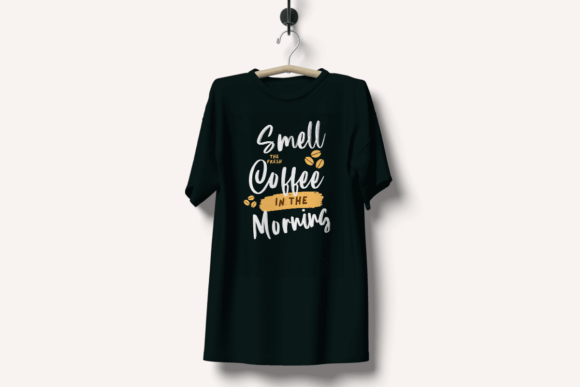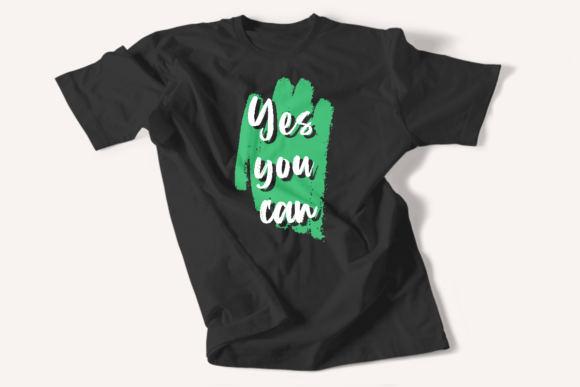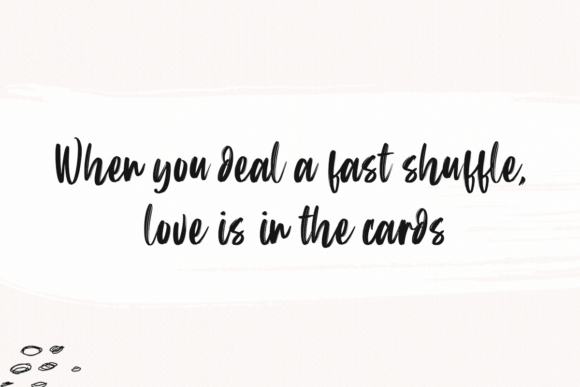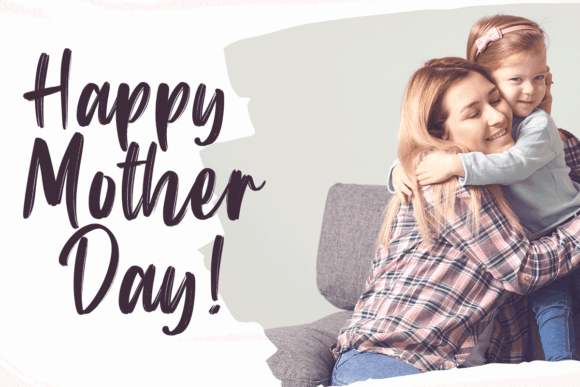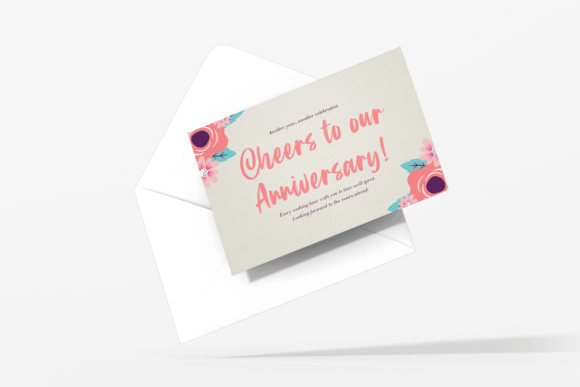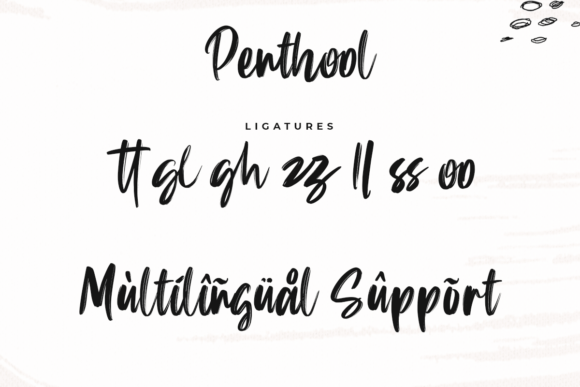
Penthool Font
About Penthool Font
“Penthool” is introduced as a classy, paint-brushed handwritten font with simple yet powerful visual effects. Described as perfect for logos, branding, social media, fonts, typography, t-shirt designs, quotes, greeting cards, and more, this font aims to offer versatility in various design applications.
The use of a paint-brushed style suggests a dynamic and artistic quality to the font, adding a touch of uniqueness to the characters. The simplicity of the design is highlighted, emphasizing its potential for impactful visual effects.
The PUA encoding feature is mentioned as part of the font, allowing users to access all the glyphs and swashes with ease. This ensures a seamless and user-friendly experience, enabling customization through different letter combinations and design elements.
In summary, “Penthool” is positioned as more than just a font; it’s a design tool tailored for a range of creative projects. Whether you’re working on logos, branding, social media graphics, or other design applications, this handwritten font is presented as a classy and versatile option, with the added benefit of easy glyph and swash access through PUA encoding.